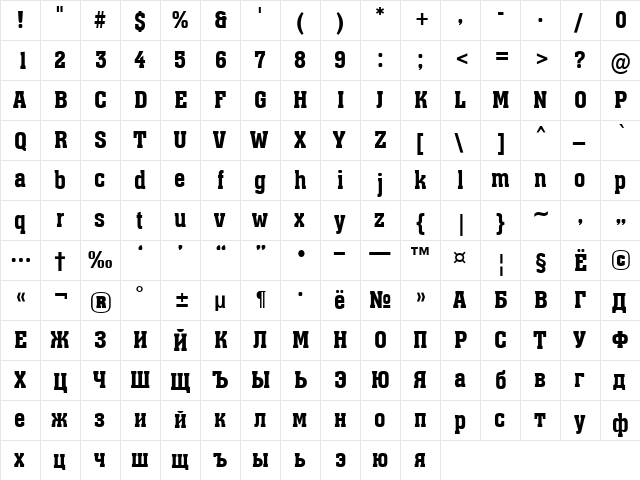
a_AssuanNr Medium
Design Context for a_AssuanNr Typeface
a_AssuanNr is a composed and adaptable typeface that performs quietly and consistently across a wide range of design contexts.